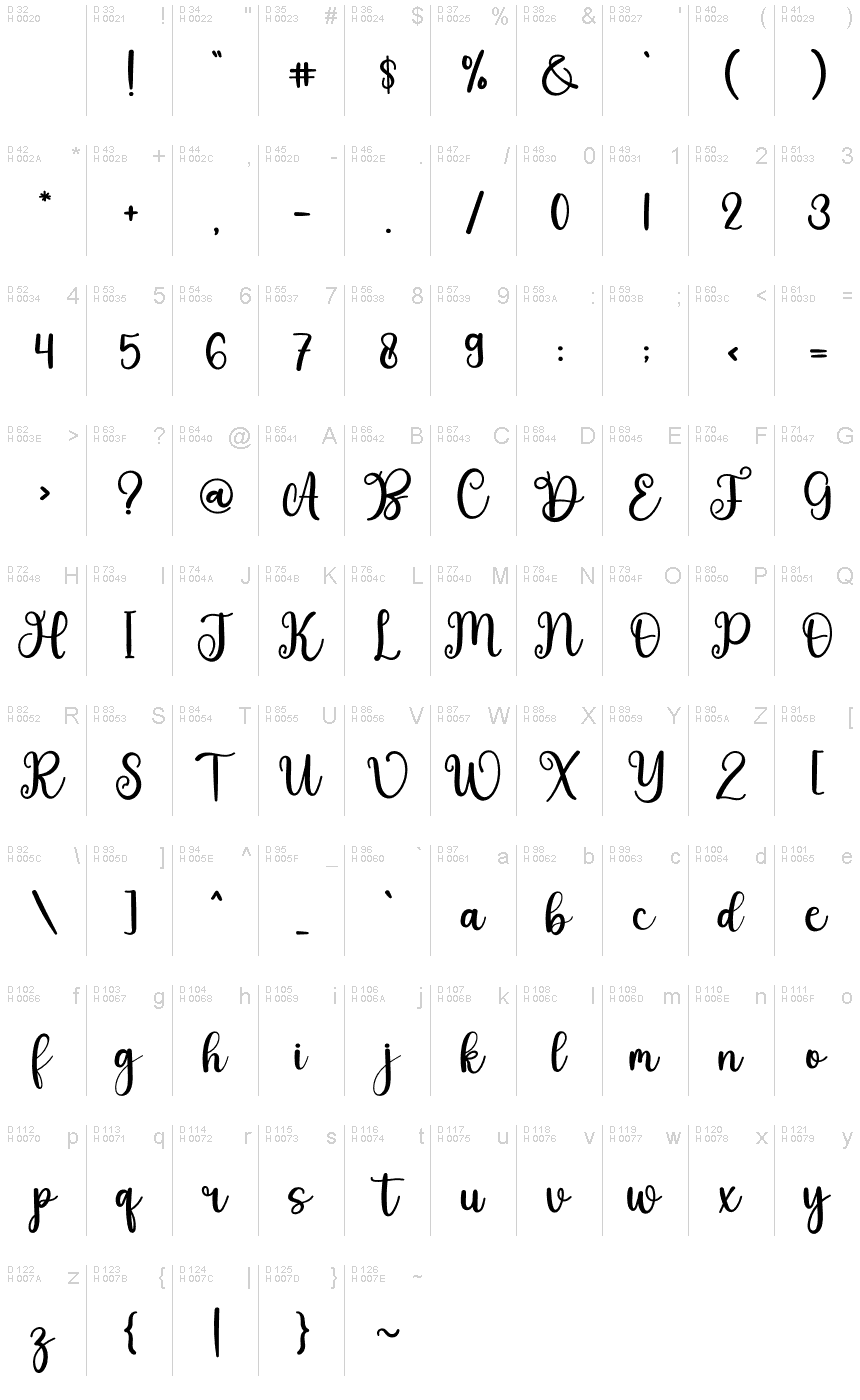
Australia
Introducing Australia, a beautiful, calligraphic font designed by Inermedia Studio. Perfect for weddings and other special occasions, this font can also bring an elegant touch to any project requiring a classic and timeless look.